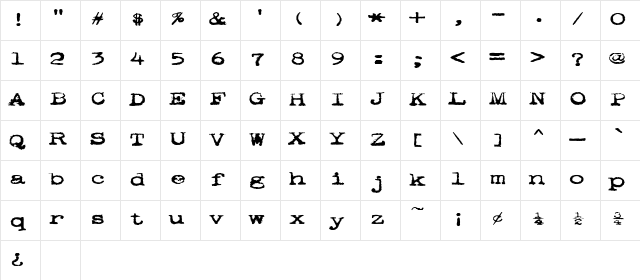
corona short normal
Design Context for corona short Typeface
corona short is a composed and adaptable typeface that performs quietly and consistently across a wide range of design contexts.